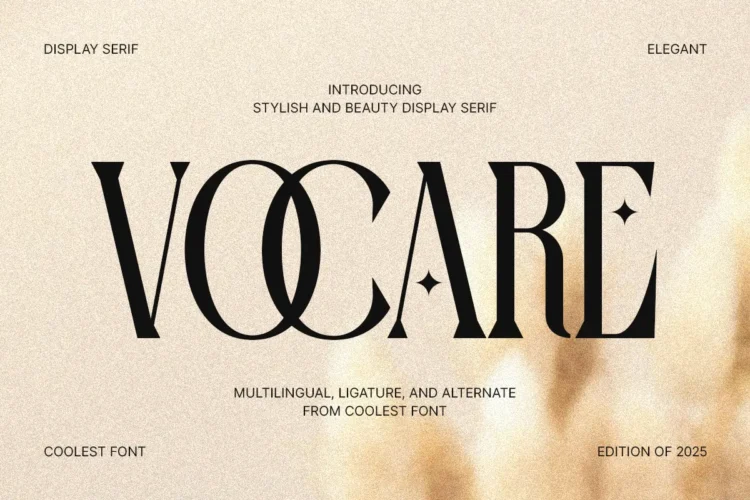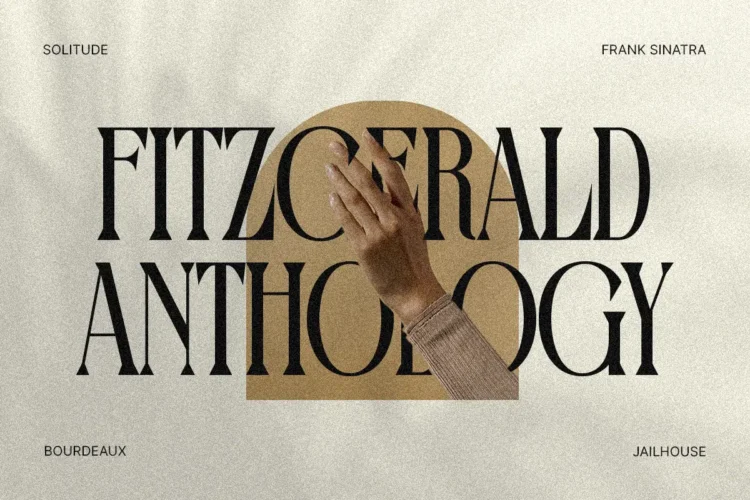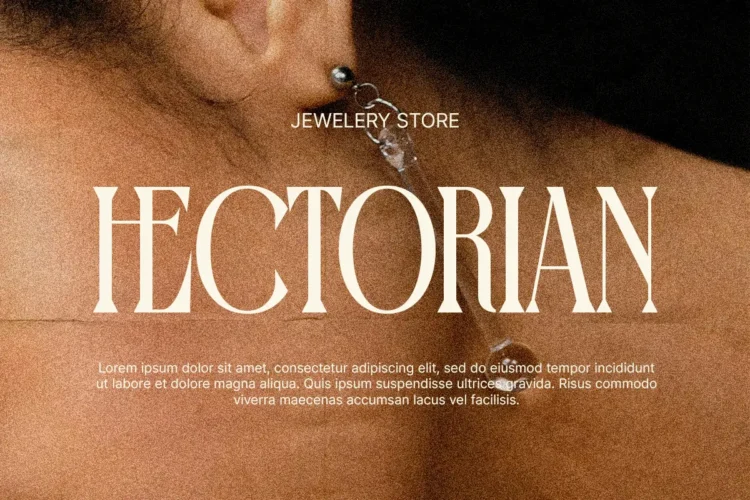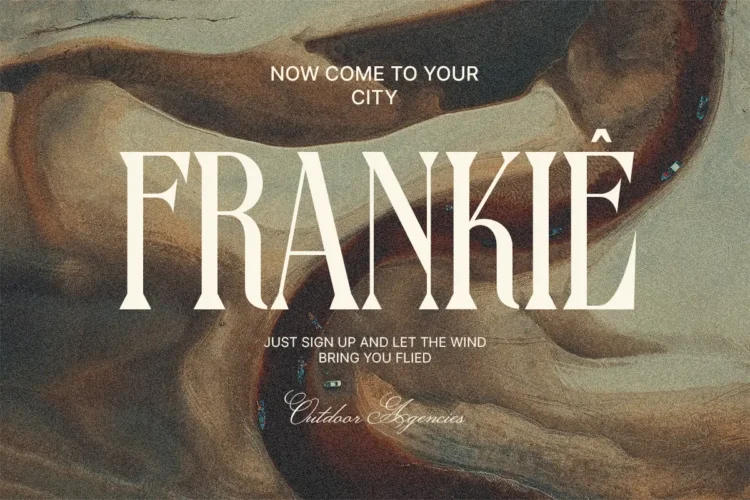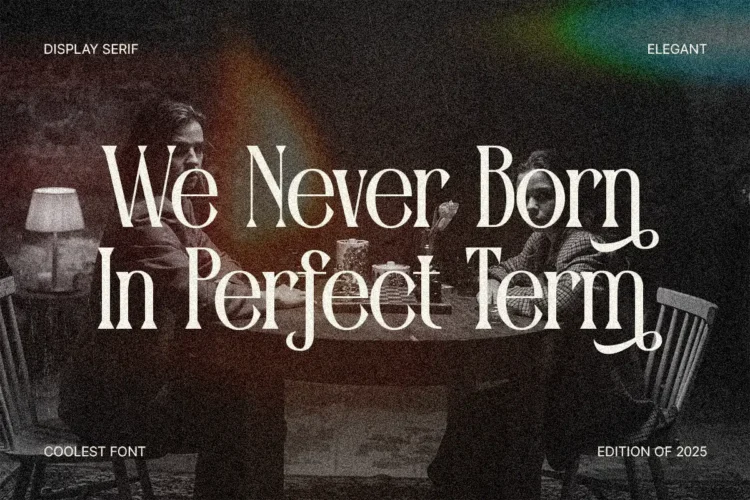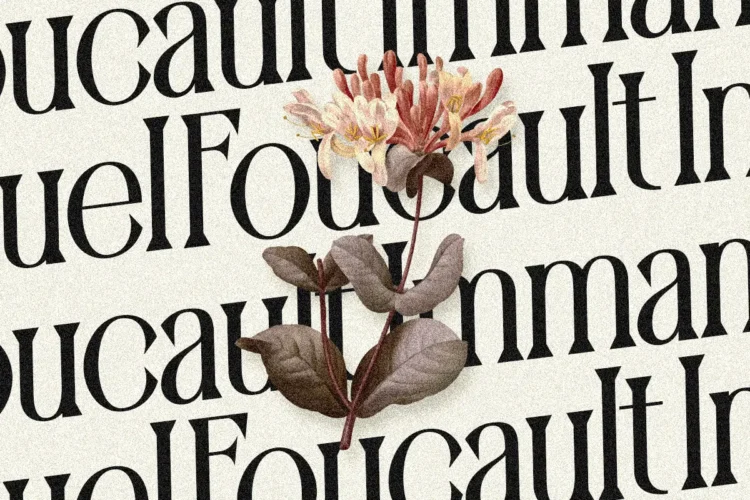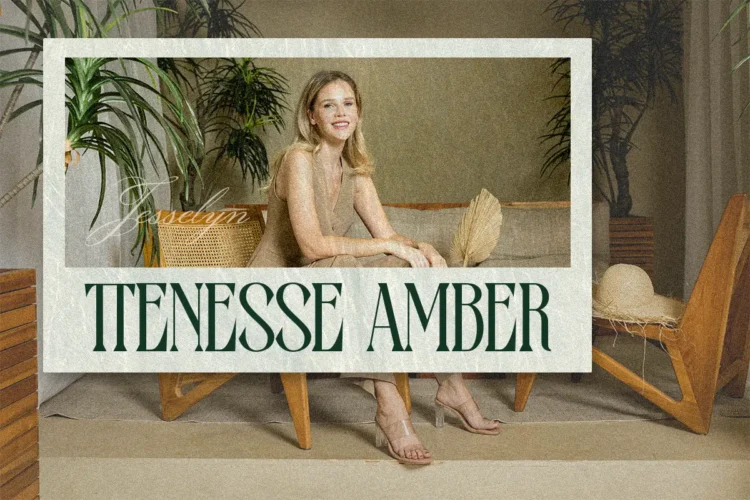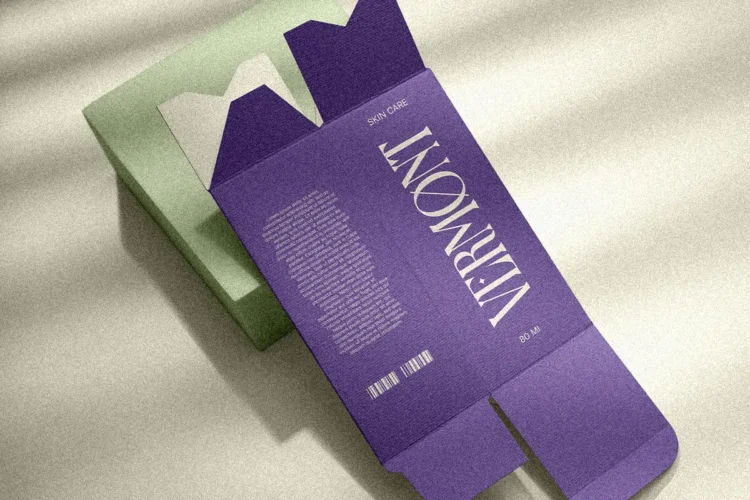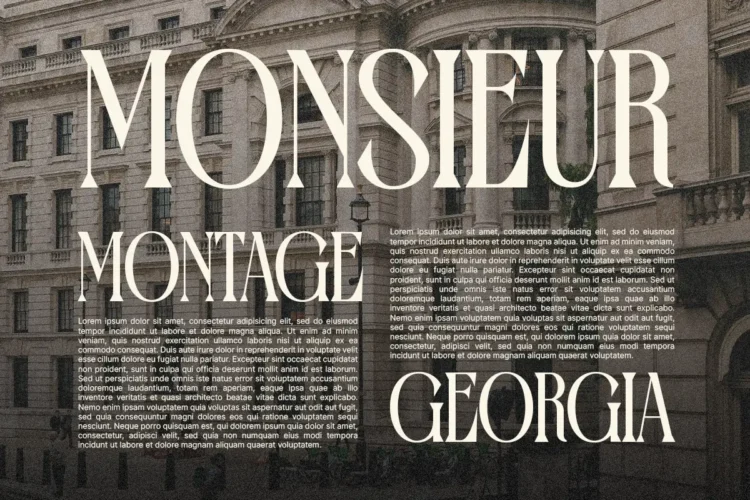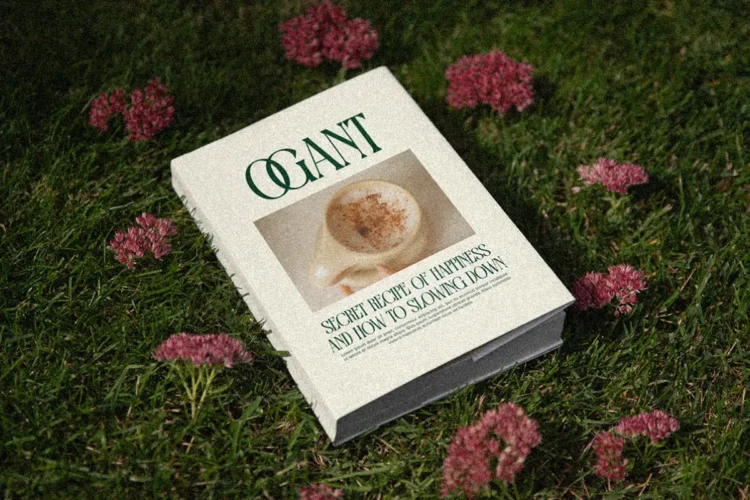
Vocare Font – Elegant & Modern Serif Font for Luxury Branding
Vocare Font is a stunning serif font that blends modern, aesthetic, and classic design into one timeless masterpiece. Inspired by editorial elegance and luxury fashion typography, this elegant font delivers sophistication and charm for every visual project.
Its alternate and ligature features provide unique stylistic flexibility, allowing designers to create custom compositions that exude refinement and artistry. This is a display serif typeface with a distinct personality stylish and beautiful, as its core design philosophy suggests. It’s the cool font that doesn’t try too hard, and the goods font that elevates any product it accompanies.
Vocare Font Included :
- Alternates
- Ligature
Vocare Font is versatile and works beautifully for :
- Branding & Identity: The ultimate branding font for luxury cosmetic brands, high-end jewelry stores, fashion labels, and boutique hotels.
- Logo & Wordmarks: An exceptional logo font that gives any business name a sophisticated and memorable identity.
- Editorial & Publishing: A flawless heading font and headline font for magazines, lookbooks, and website titles.
- Packaging & Print: The ideal choice for poster font, cover font designs, product labels, and wedding invitations that require a touch of class.
- Titles & Logotypes: For music albums, film titles, and any project where the name itself is the hero.
Key Features of Vocare Font:
- Extensive Ligatures & Alternates: Vocare comes packed with contextual alternates and artistic ligatures that automatically transform your text into a fluid, custom-looking piece of art. This allows for endless customization, ensuring your headings are always unique and visually harmonious.
- Multilingual Support: Ensure your elegant message is communicated globally with wide language support.
- Perfect for Display Use: Expertly crafted for large-scale applications, Vocare commands attention and delivers unparalleled beauty.